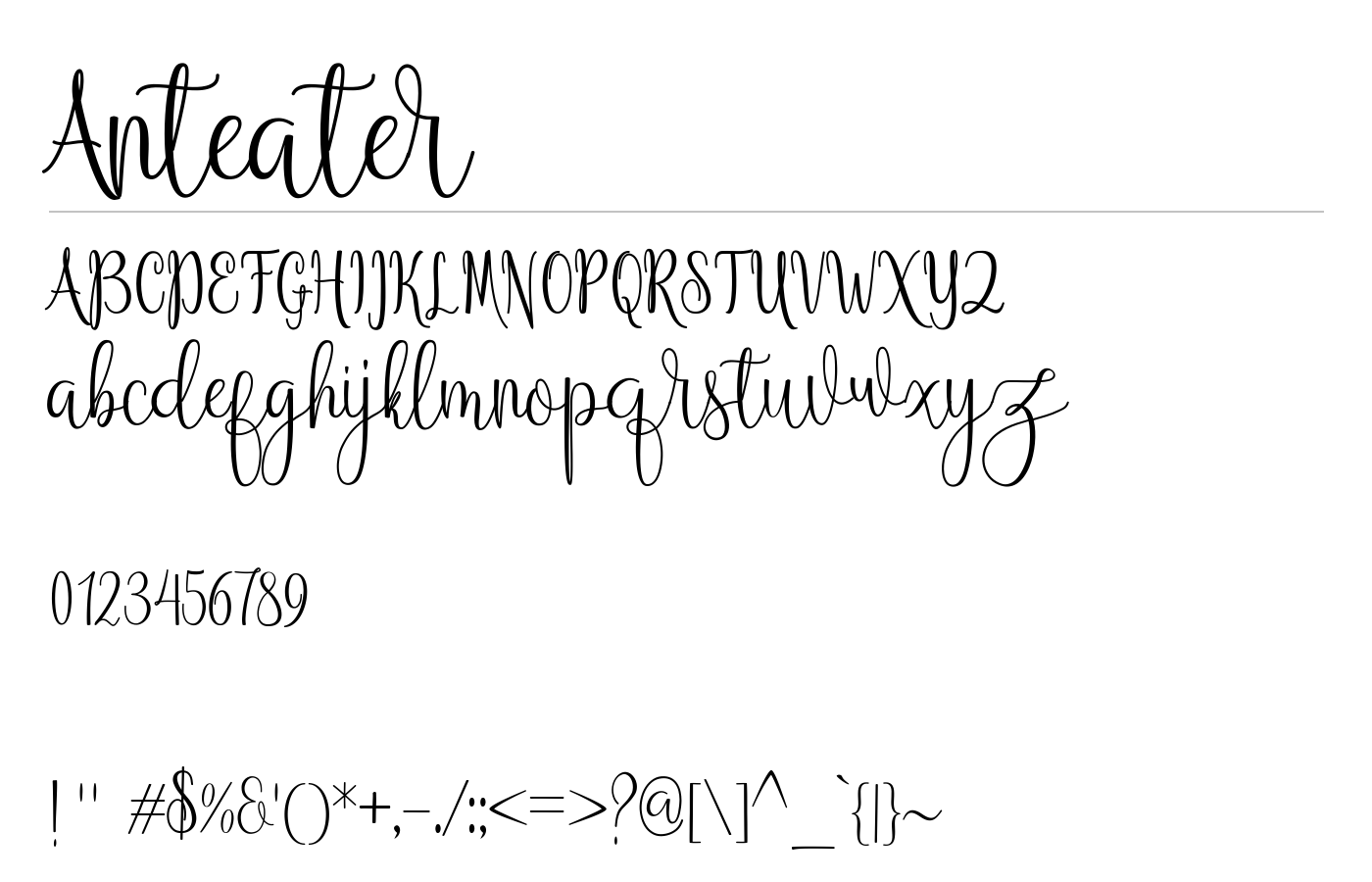
Anteater Font is a delicate, handwritten script featuring tall, slender letterforms with graceful loops and a casual elegance. Its smooth, flowing strokes create a charming and friendly look, making it ideal for invitations, branding, and projects that seek a personal, approachable feel. This font works best in headlines or decorative uses where its unique style can shine without compromising readability.
Anteater Font